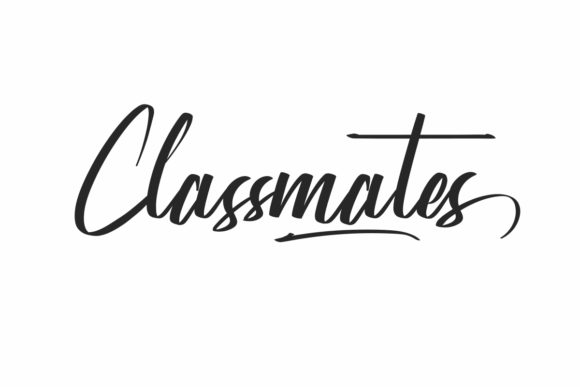
About Classmates Font
Classmates is a casual and fun handwritten font. Fall in love with its incredibly versatile style and use it to create spectacular designs!